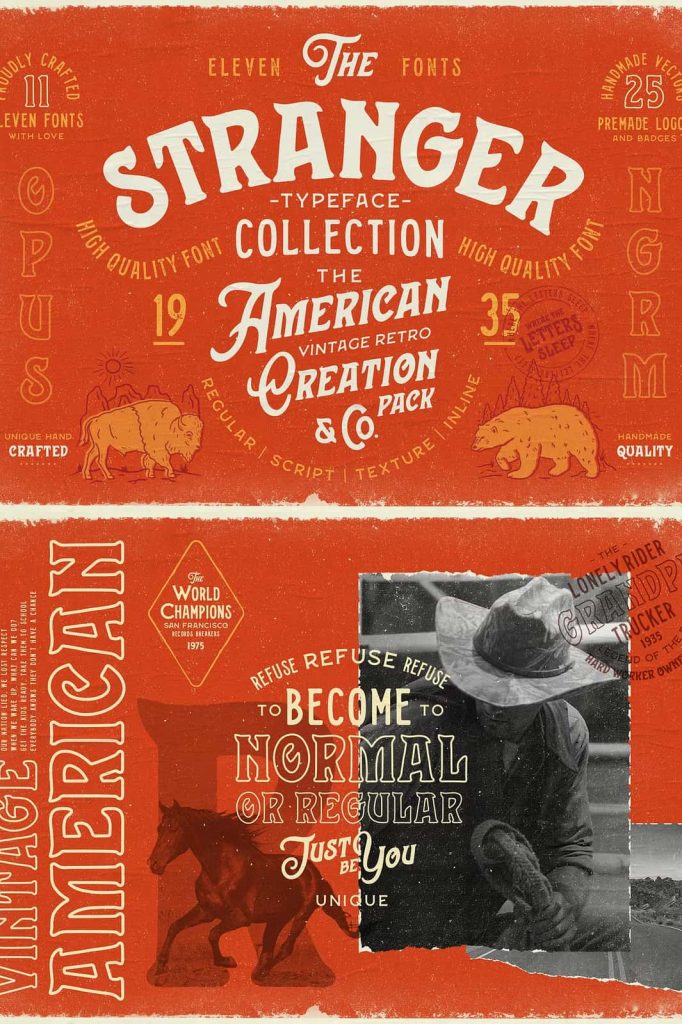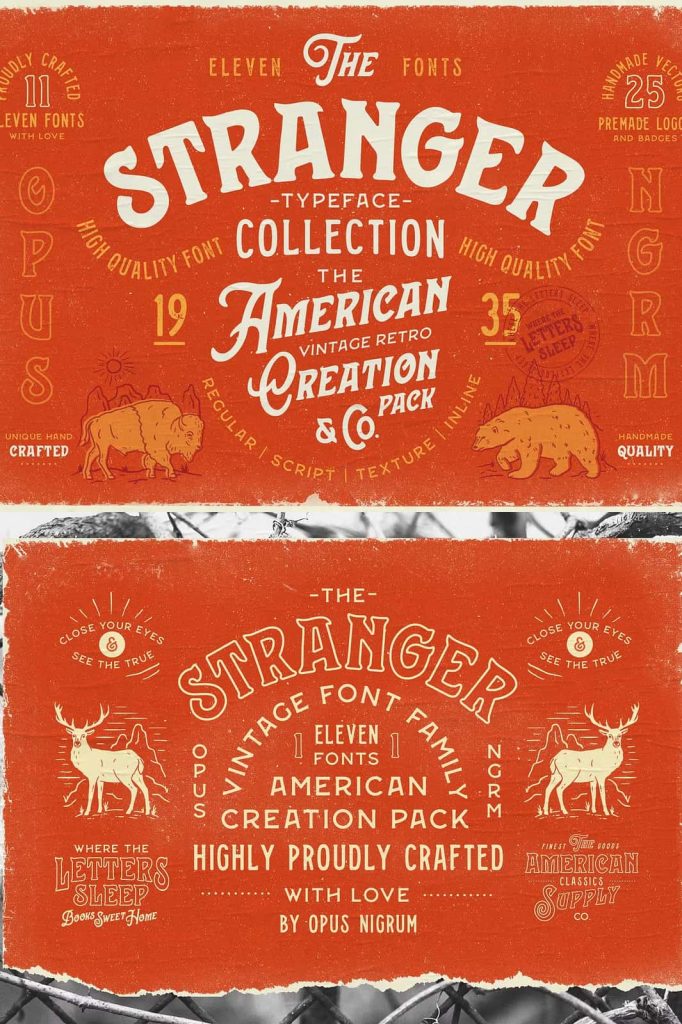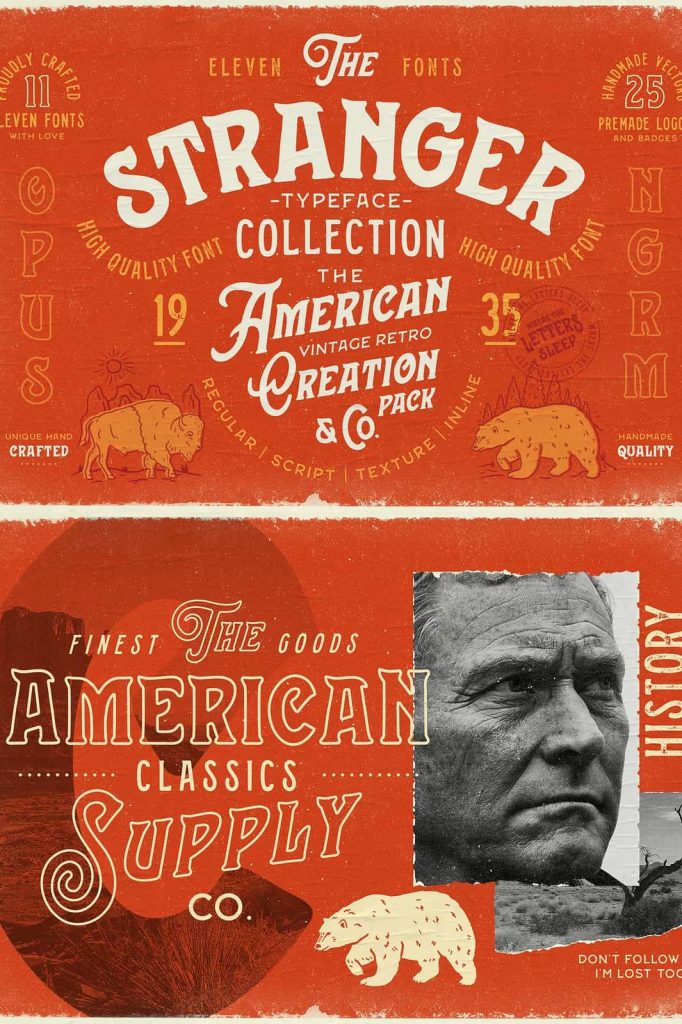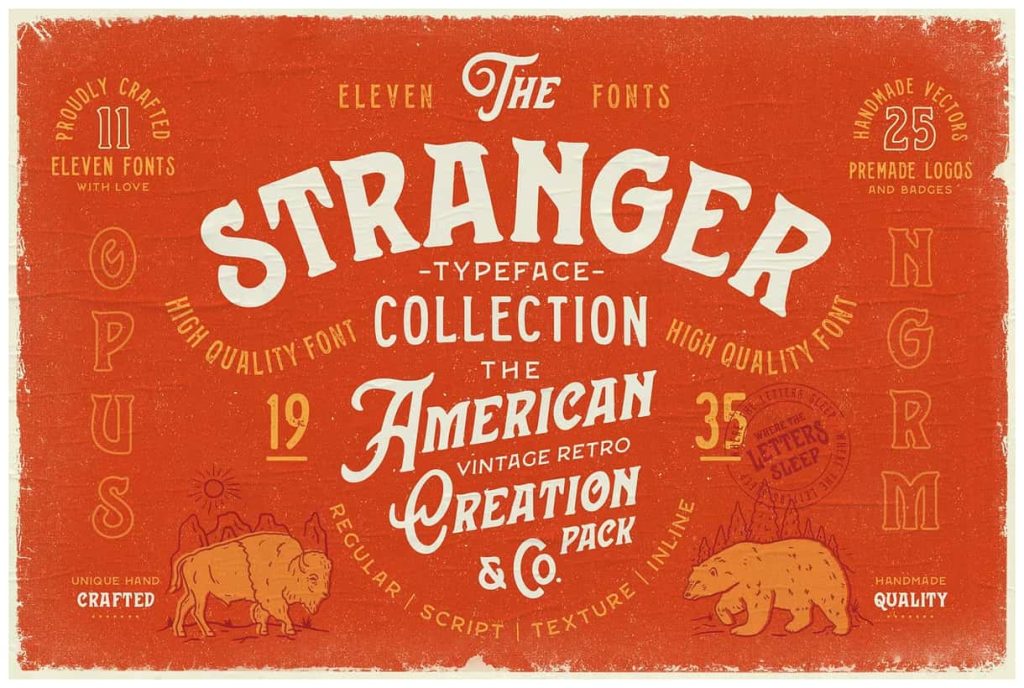
Stranger Font Collection + ExtrasleastedMarch 28, 2025Fonts STRANGER Font Collection was born like a reversion from “Bohemian Alchemist” but more solid and with more fonts to combine. Download